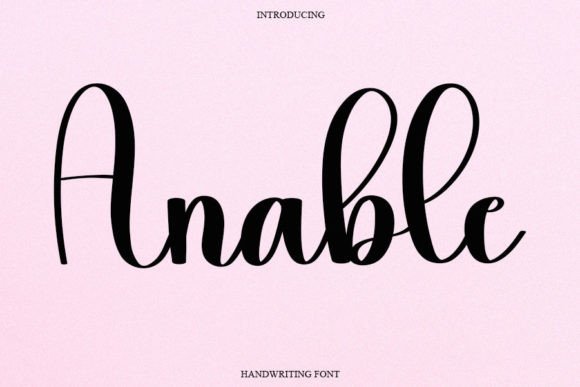
Journey into the realm of eloquence with Anable Font, a captivating script font that will transform your designs into mesmerizing masterpieces. Handcrafted with meticulous care, each letter flows seamlessly, embodying the essence of elegance and grace. Inspired by the art of calligraphy, Anable captures the beauty of handwritten words, adding a touch of personal charm to your creative endeavors.
Immerse yourself in a world of creative possibilities with Anable Font. Whether you're crafting heartfelt invitations, designing awe-inspiring posters, or creating captivating social media graphics, this font will elevate your designs to new heights of sophistication. Its delicate strokes and graceful curves lend a timeless appeal, making it the perfect choice for projects that demand a touch of elegance and refinement.
Unleash your inner artist and let your creativity soar with Anable Font. Its versatility knows no bounds, making it the ideal font for a wide range of projects. From whimsical wedding invitations to thought-provoking logos, from enchanting book covers to heartfelt greeting cards, Anable seamlessly adapts to your creative vision, adding a touch of magic to every design.
With Anable Font, you'll discover a font that not only enhances your designs but also evokes emotions and captivates your audience. Its charmingly handwritten characters possess a unique personality, drawing readers in and creating a lasting impression. Experience the power of words beautifully rendered in Anable Font, leaving an indelible mark on the hearts and minds of your readers.
Embrace the elegance and beauty of Anable Font, and elevate your designs to new heights of artistry. Let your creativity flourish and your imagination run wild as you explore the endless possibilities that await you with this captivating script font. Anable Font is more than just a font; it's an invitation to embark on a journey of creative expression and leave your mark on the world through the art of beautiful typography.